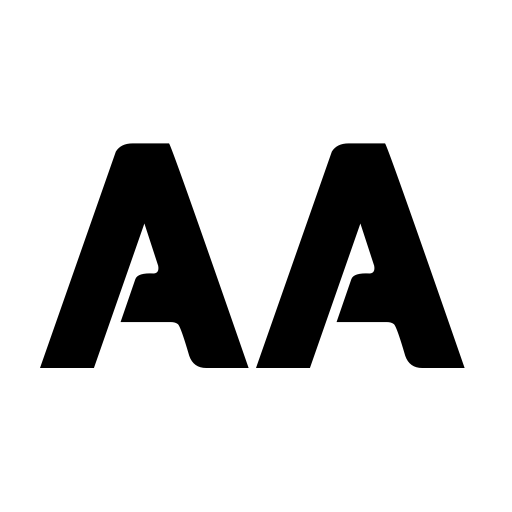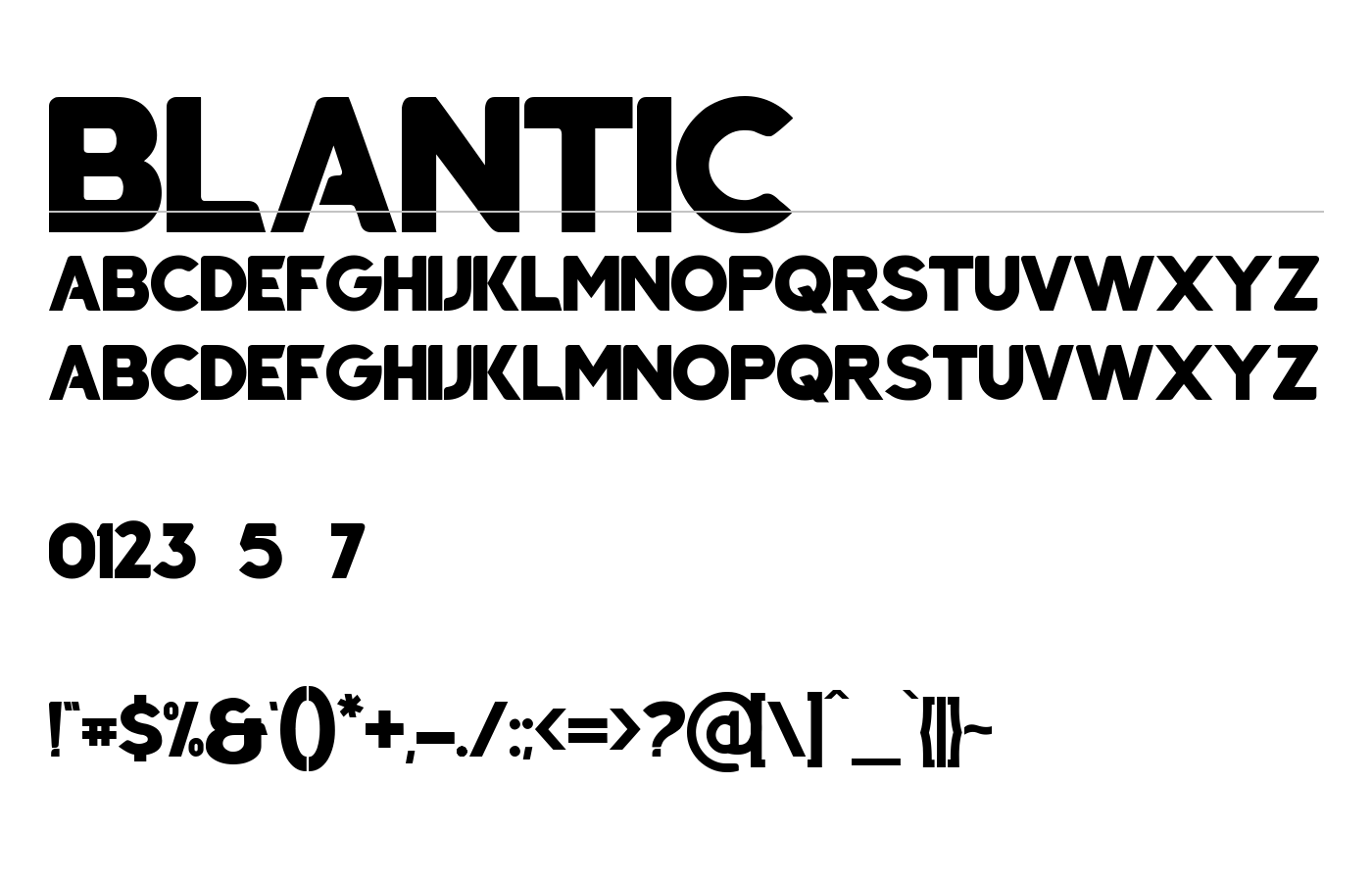
Blantic is a bold, geometric sans serif font with a strong, modern presence. Its heavy weight and wide letterforms create a powerful and confident look, while subtle angular cuts add a unique, slightly futuristic edge. This font works especially well for headlines, logos, and branding that need to convey strength and contemporary style.
| Font family | blantic Font |
| Designer | ©zamjump_studio. | Ahmad Zamzamy |